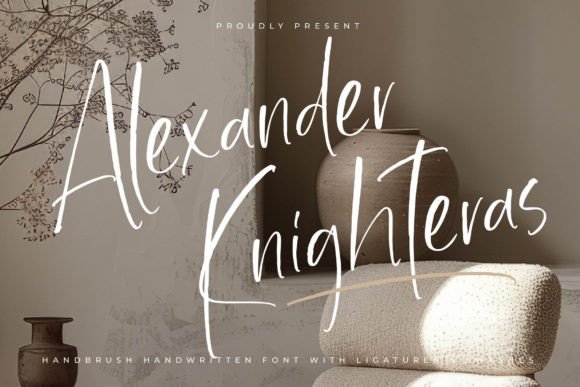
The Art of Typography: Unleashing Creativity with Alexander Knighteras Font
You’ve finally landed that big design project, and you’re itching to create something truly remarkable. The blank canvas stares back at you, and your mind starts racing with ideas. As you begin to sketch out your concept, you know that the right font can make all the difference. That’s where Alexander Knighteras Font comes in – a stunning, elegant handwritten typeface that adds a touch of sophistication to any design.
Whether you’re crafting posters, flyers, or any other visual masterpiece, Alexander Knighteras Font is the perfect tool to help you stand out from the crowd. Its unique, handwritten style has a way of grabbing attention and leaving a lasting impression. And for designers, that’s priceless. With Alexander Knighteras Font, you’ll be able to infuse your work with a level of creativity and flair that’s hard to achieve with more traditional fonts.
Alexander Knighteras Font Key Features
- Unique Characteristics: The font features a unique blend of modern and vintage elements, with intricate details and subtle texture, making it suitable for various design applications.
- Font Style: The font comes in 6 styles: Regular, Italic, Bold, Bold Italic, Condensed, and Extended, offering flexibility for designers to choose the perfect style for their project.
Review of Alexander Knighteras Font
I recently had the chance to work with the Alexander Knighteras Font, and I must say it’s a unique and intriguing choice. ✨ One thing that stands out is its elegant and refined aesthetic, making it perfect for high-end or luxury projects.
However, there are some limitations to consider. ⚠️ Firstly, the font can be a bit too ornate for some projects, and the complexity of its design can make it difficult to read at smaller sizes. Additionally, the font’s bold weights may not be as well-suited for body text, and the italic styles can be a bit inconsistent.
- ✨ Elegant and refined aesthetic
- Perfect for high-end or luxury projects
- Available in multiple weights and styles
- Supports a wide range of languages
- ⚠️ Can be too ornate for some projects
- Difficult to read at smaller sizes
- Bold weights may not be well-suited for body text
- Italic styles can be inconsistent
Overall, I think the Alexander Knighteras Font is a solid choice for the right project. While it may have some limitations, its unique aesthetic and high-end feel make it a great option for those looking to make a statement.
To get the most out of Alexander Knighteras Font, use it for creative projects that require a unique, elegant touch. Common use cases include:
– Luxury branding
– High-end marketing materials
– Wedding invitations
– Fine art prints
Alternatives to Alexander Knighteras Font for Designers
Playfair Display is a luxurious, high-end serif font ideal for creating elegant and sophisticated designs. It’s perfect for use in magazine headlines, book covers, and wedding invitations.
Compared to Alexander Knighteras Font, Playfair Display has a more refined and classical feel, making it suitable for high-end branding and luxury products.
Pacifico is a beautiful, modern script font that’s great for creating a sense of relaxation and calmness. It’s ideal for use in travel brochures, spa branding, and lifestyle magazines.
Compared to Alexander Knighteras Font, Pacifico has a more casual and laid-back feel, making it suitable for designs that require a sense of warmth and approachability.